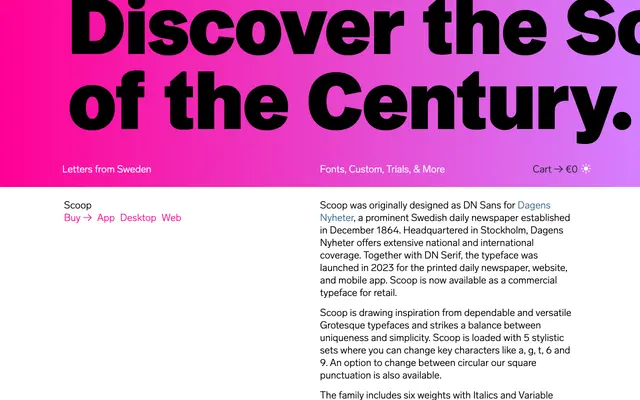
Scoop
Letters from Sweden · Göran Söderström · 2023
Scoop specimen from Letters from Sweden
A grotesque designed by Göran Söderström as the custom typeface DN Sans for Swedish daily newspaper Dagens Nyheter, now available commercially.
Originally commissioned as DN Sans for Dagens Nyheter, one of Sweden's oldest daily newspapers, the family launched in 2023 across print, web and app. Six weights with matching italics and a variable font are included, and five stylistic sets allow substitution of characters such as a, g, t, 6 and 9, along with a toggle between circular and square punctuation. A condensed variant is in production.
Scoop draws directly from the grotesque tradition, with a balanced structure informed by dependable newspaper grotesques and stylistic alternates for key characters typical of the genre.